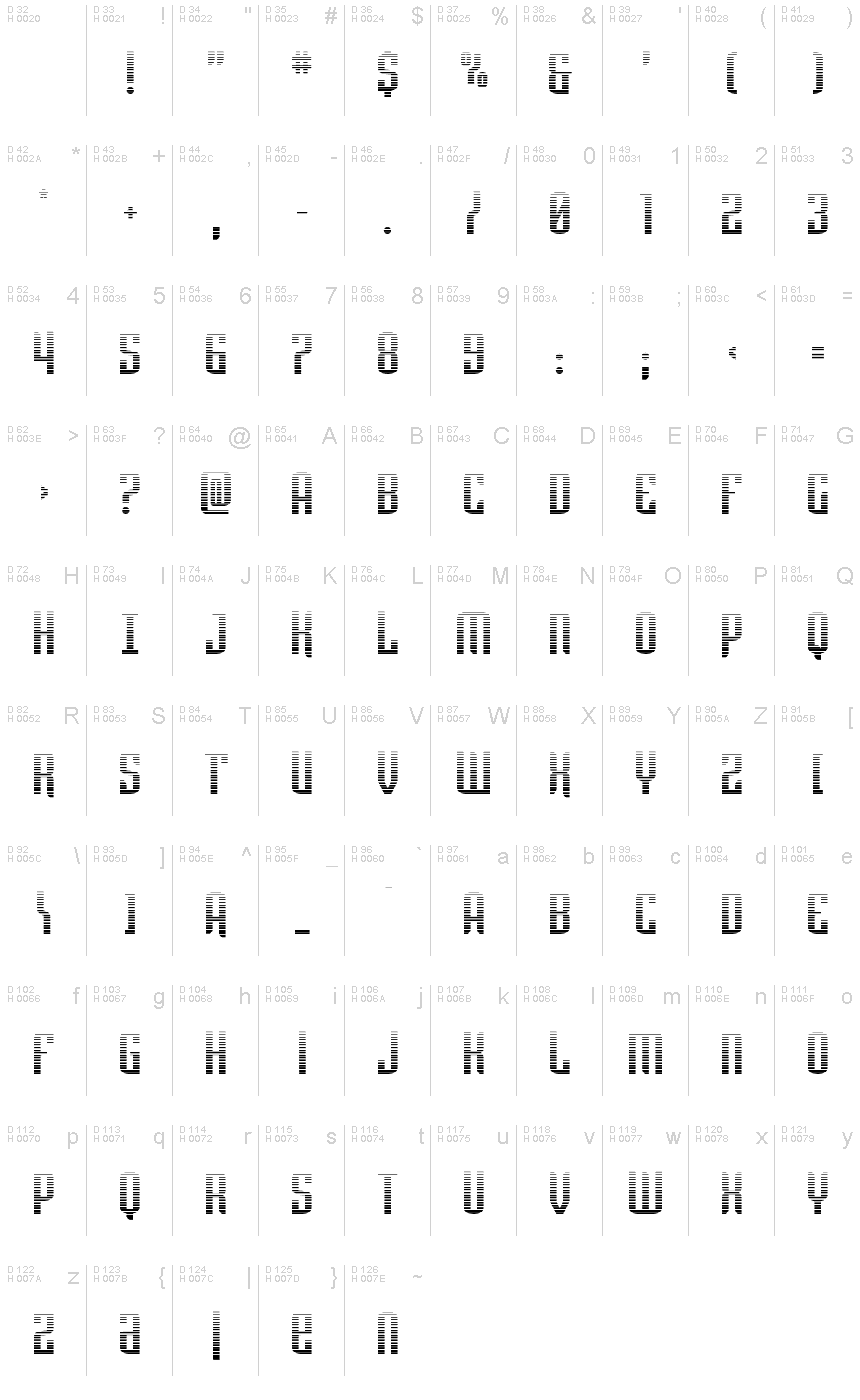
Icewave Gradient
Icewave Gradient is a cutting-edge, techno-inspired display font from the talented designer, Iconian Fonts. With its sleek and futuristic design, this extra-condensed typeface is perfect for projects that demand a modern and edgy aesthetic. Whether it's creating eye-catching logos, captivating headlines, or dynamic posters, Icewave Gradient will add a unique touch to any project. Its gradient style adds depth and dimension to your designs, making it an ideal choice for multimedia presentations, tech-related websites, and gaming interfaces. Unleash your creativity with Icewave Gradient and make your designs stand out from the crowd.